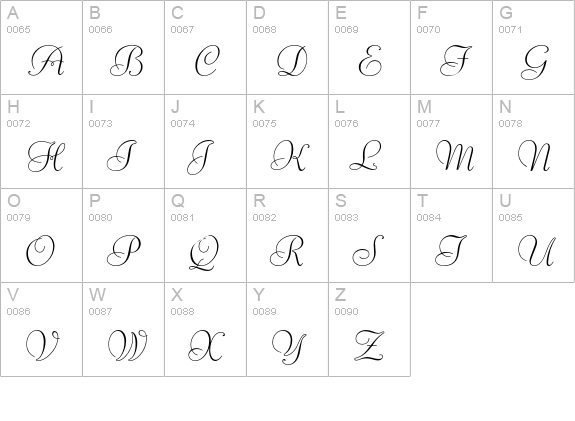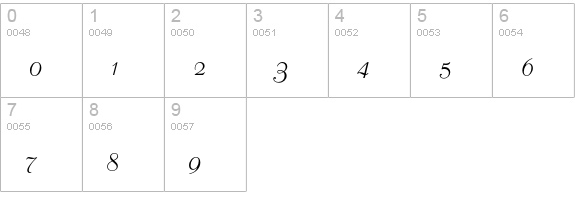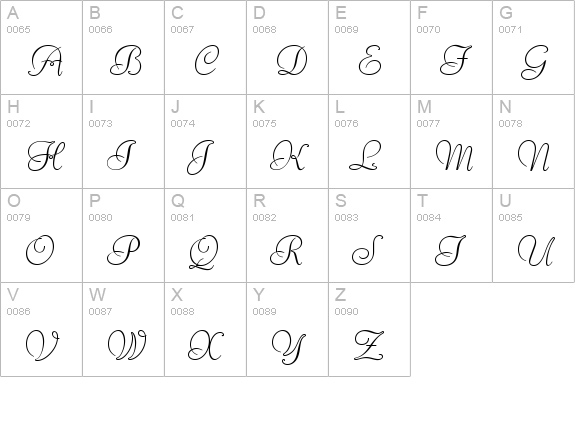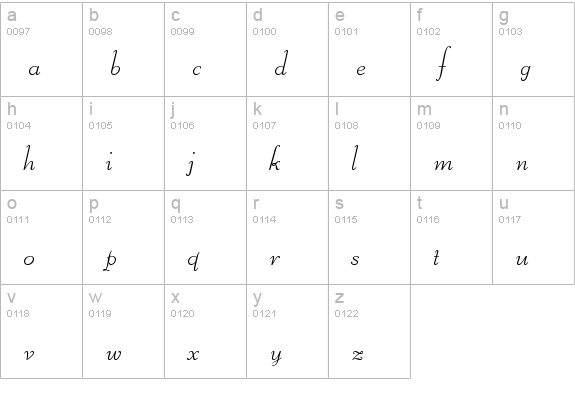
Liberty font exudes a sense of elegant freedom with its sleek lines and sophisticated curves. This versatile typeface is perfect for a wide range of design projects, from logos to invitations to branding materials. Its timeless appeal and modern aesthetic make it a top choice for designers looking to add a touch of class to their work. What makes Liberty font even more appealing is that it is freely available to download at FontsMarket.com. This means that you can easily incorporate this stunning font into your designs without any cost or hassle. So go ahead and unleash your creativity with Liberty font – the perfect blend of style and freedom.